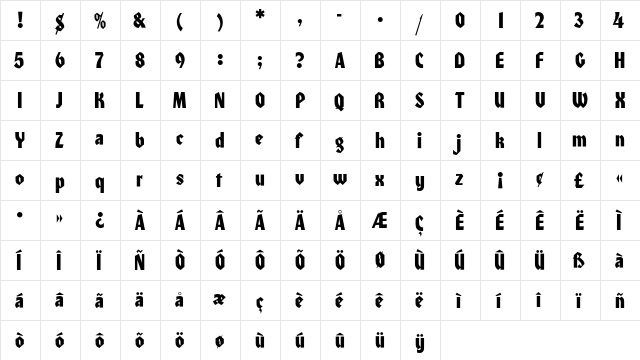
HondaEF Regular
Design Context for HondaEF Typeface
HondaEF is a composed and adaptable typeface that performs quietly and consistently across a wide range of design contexts.